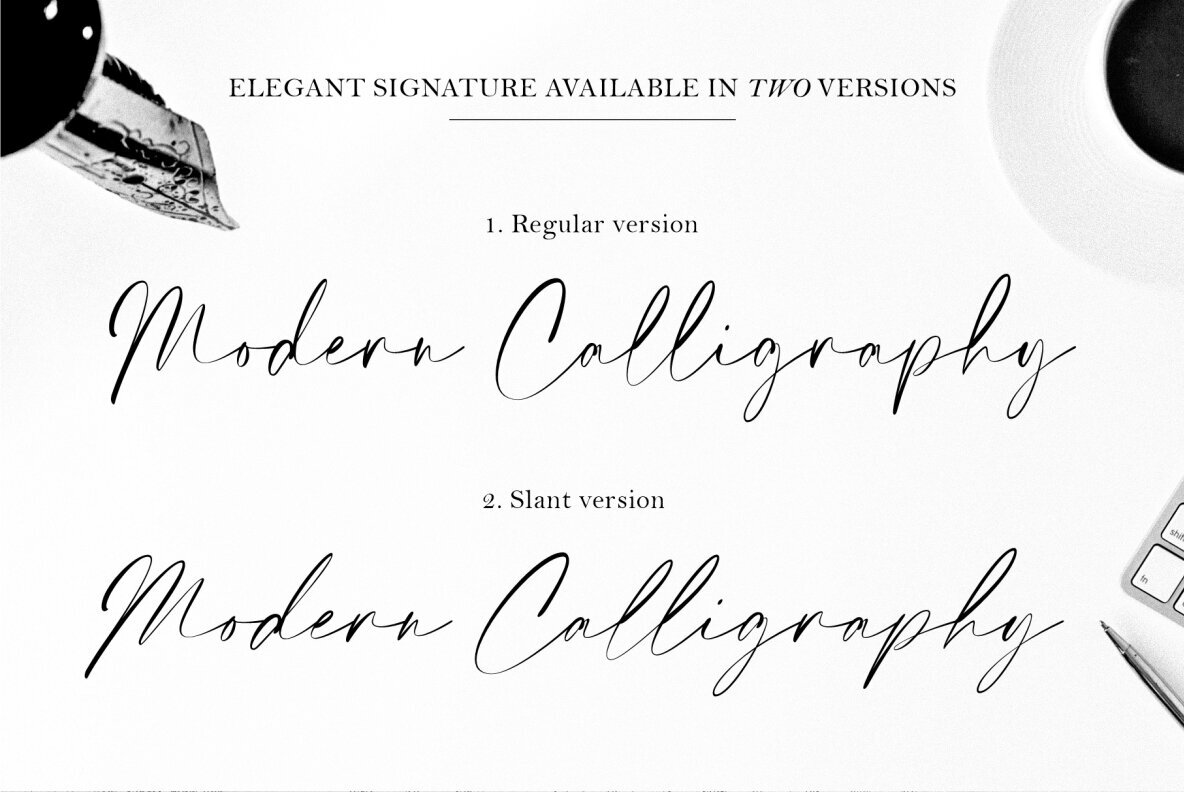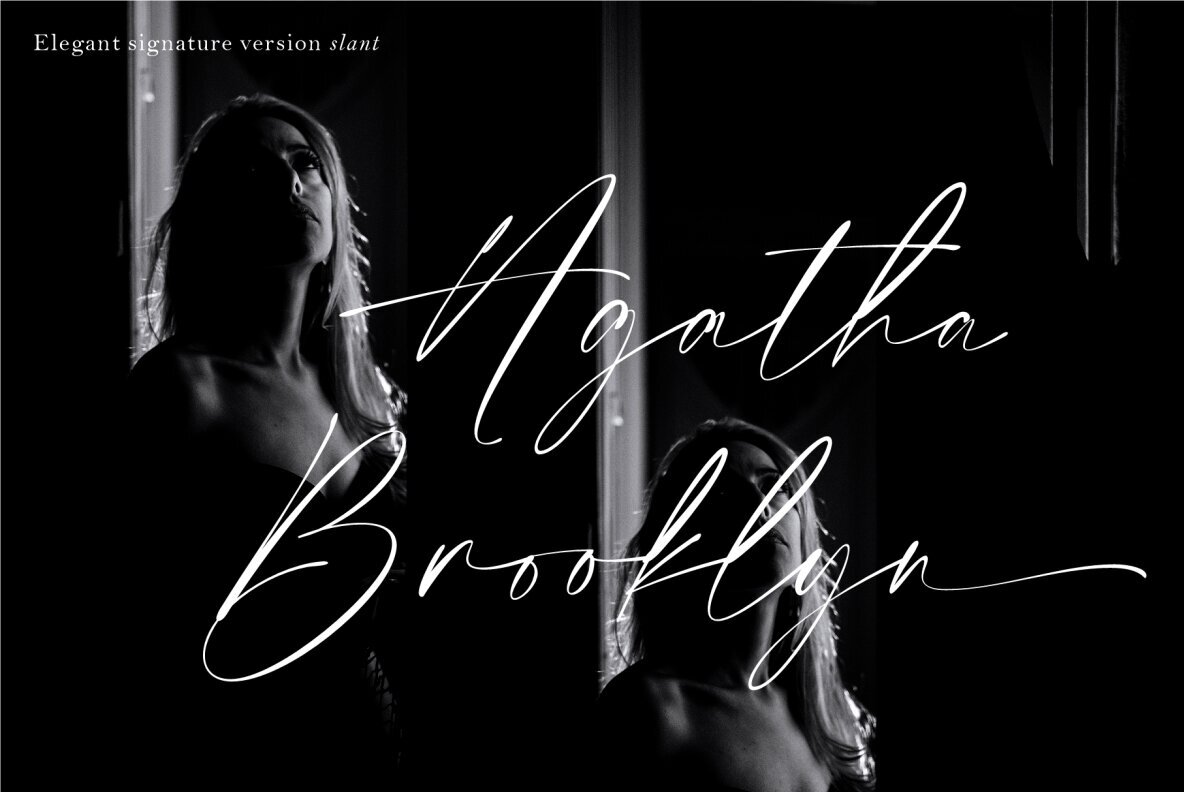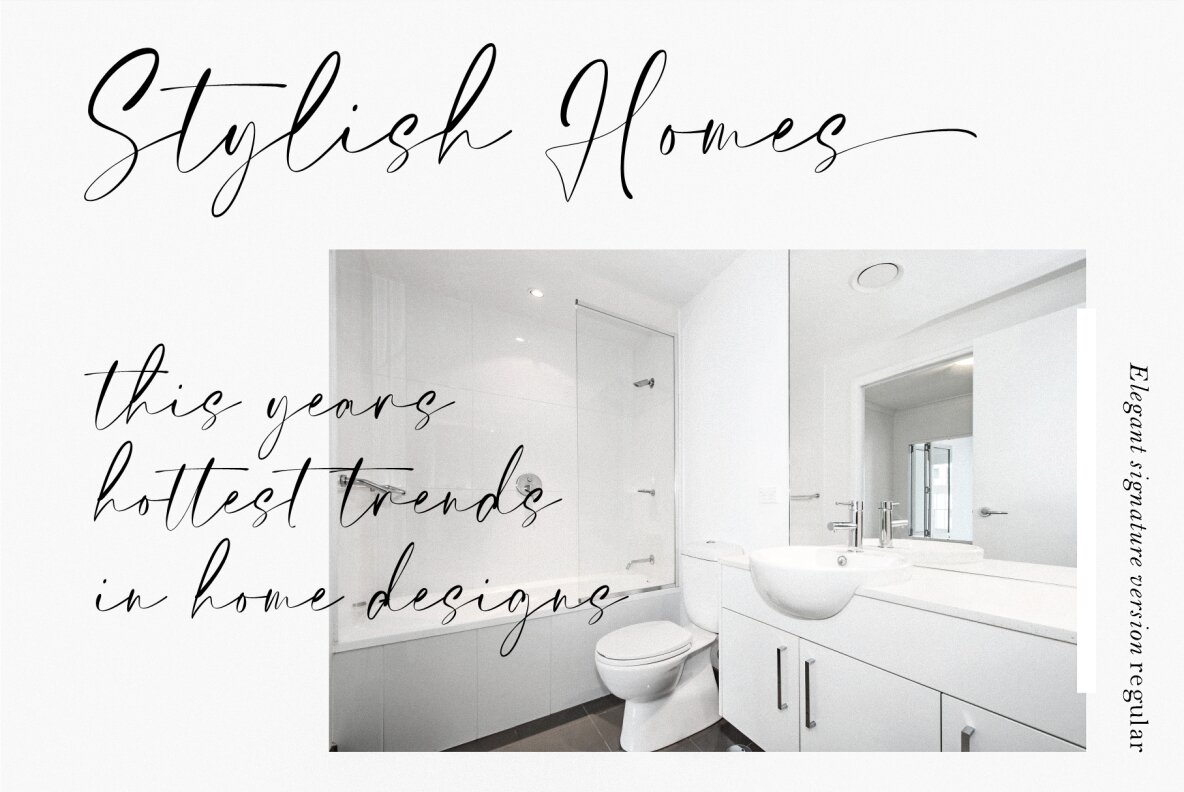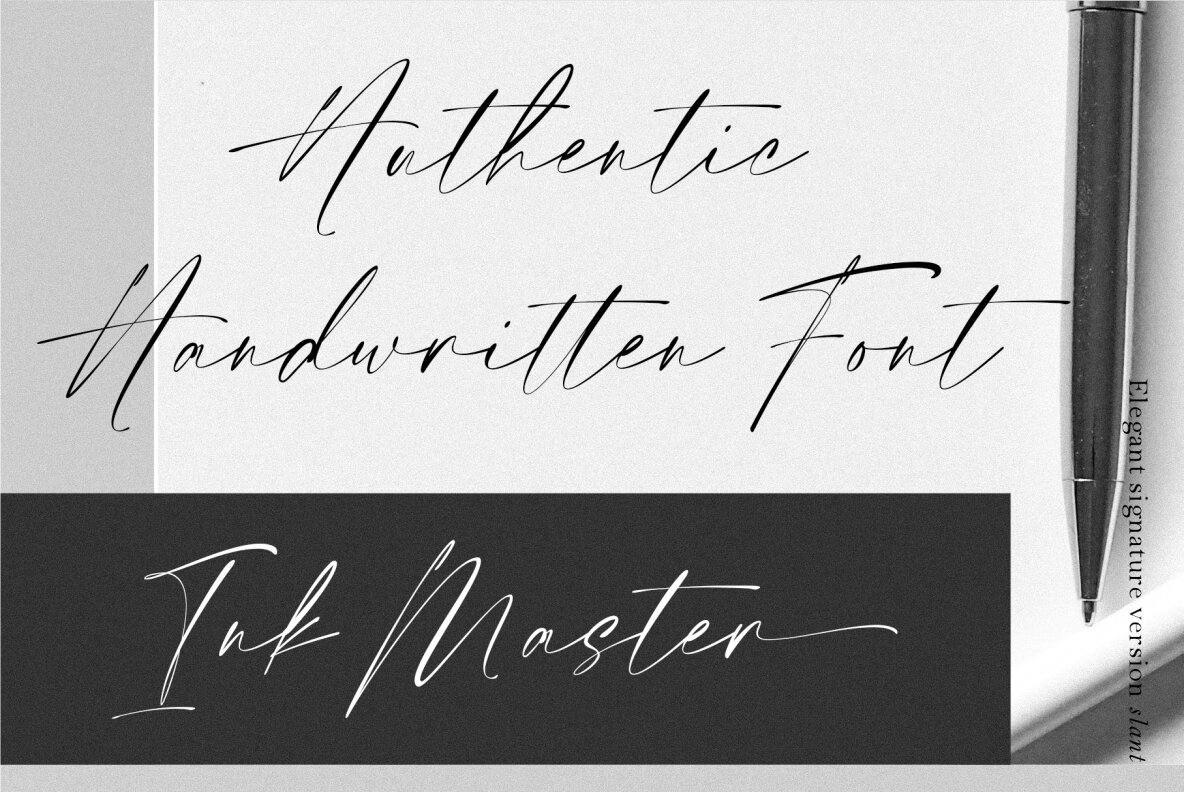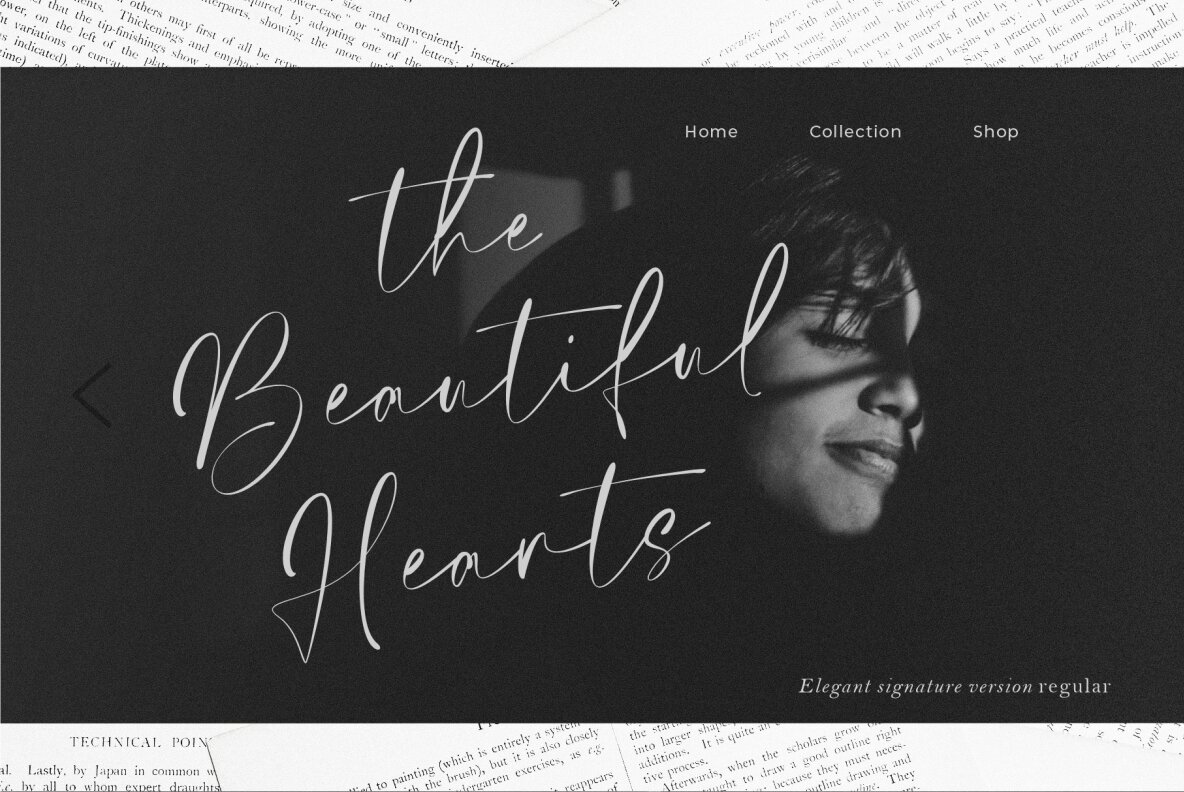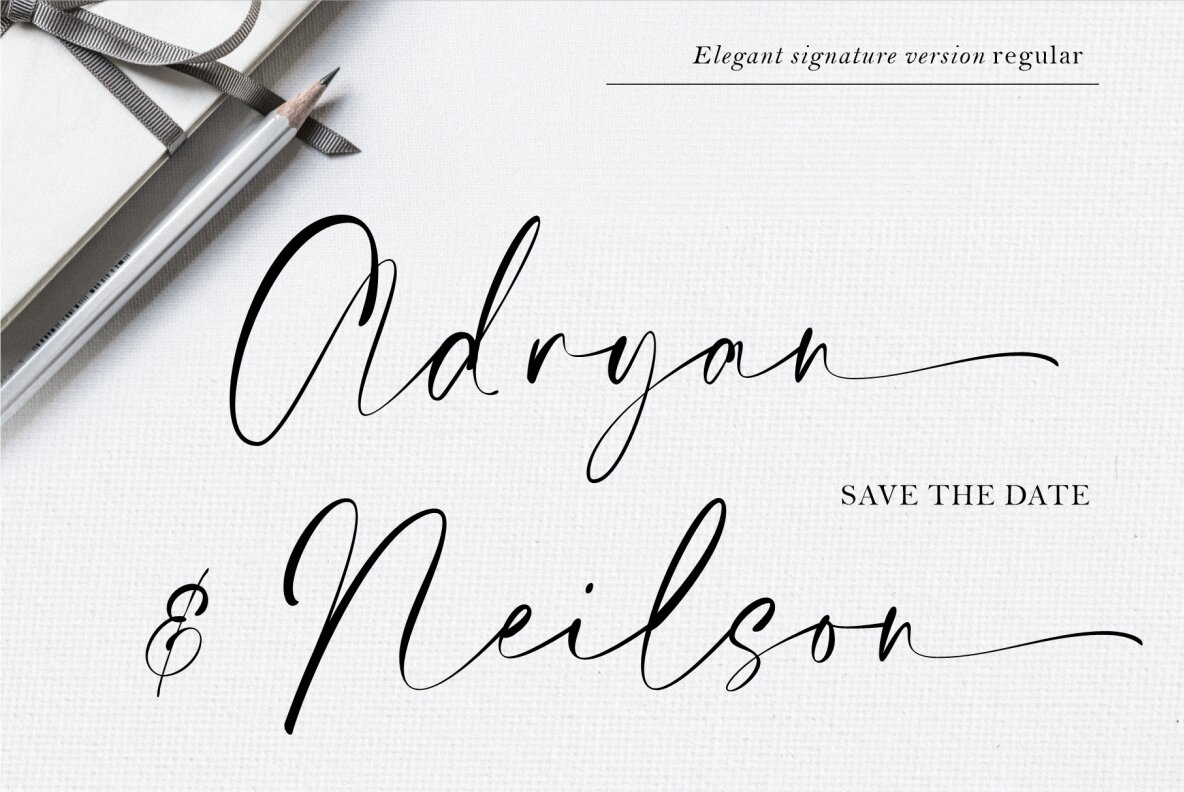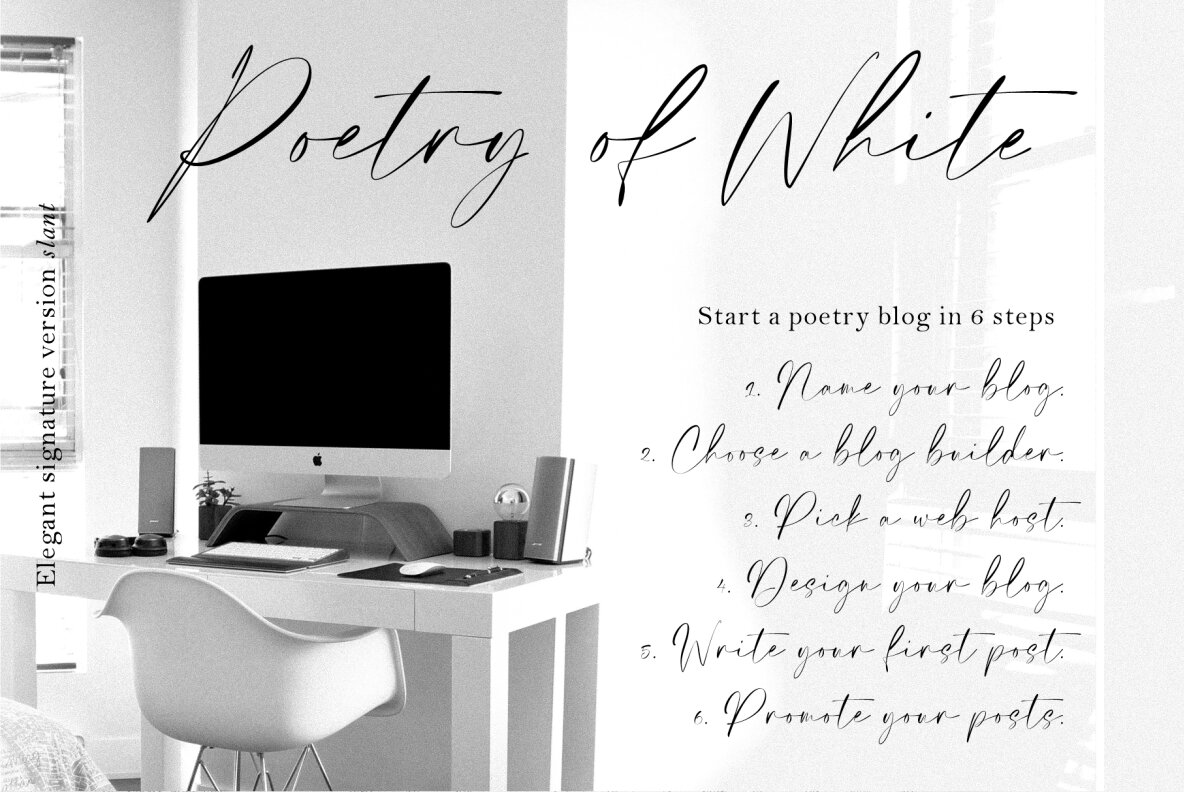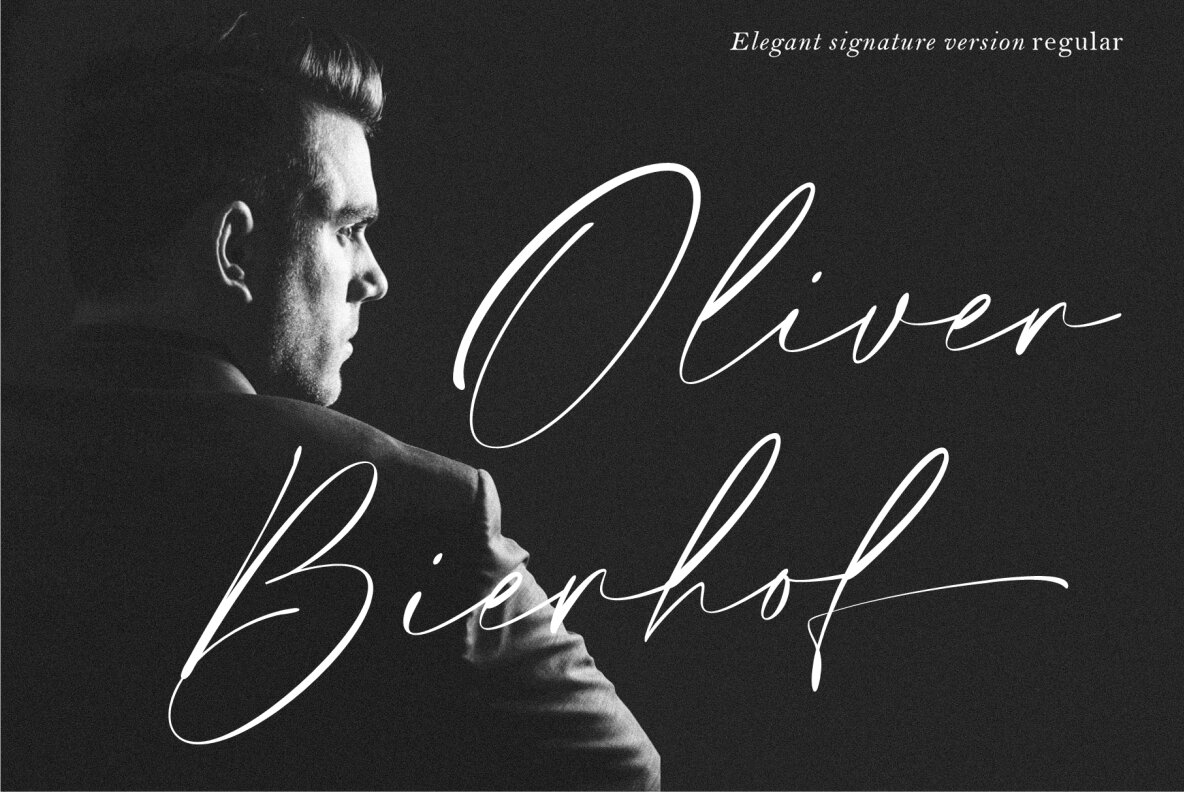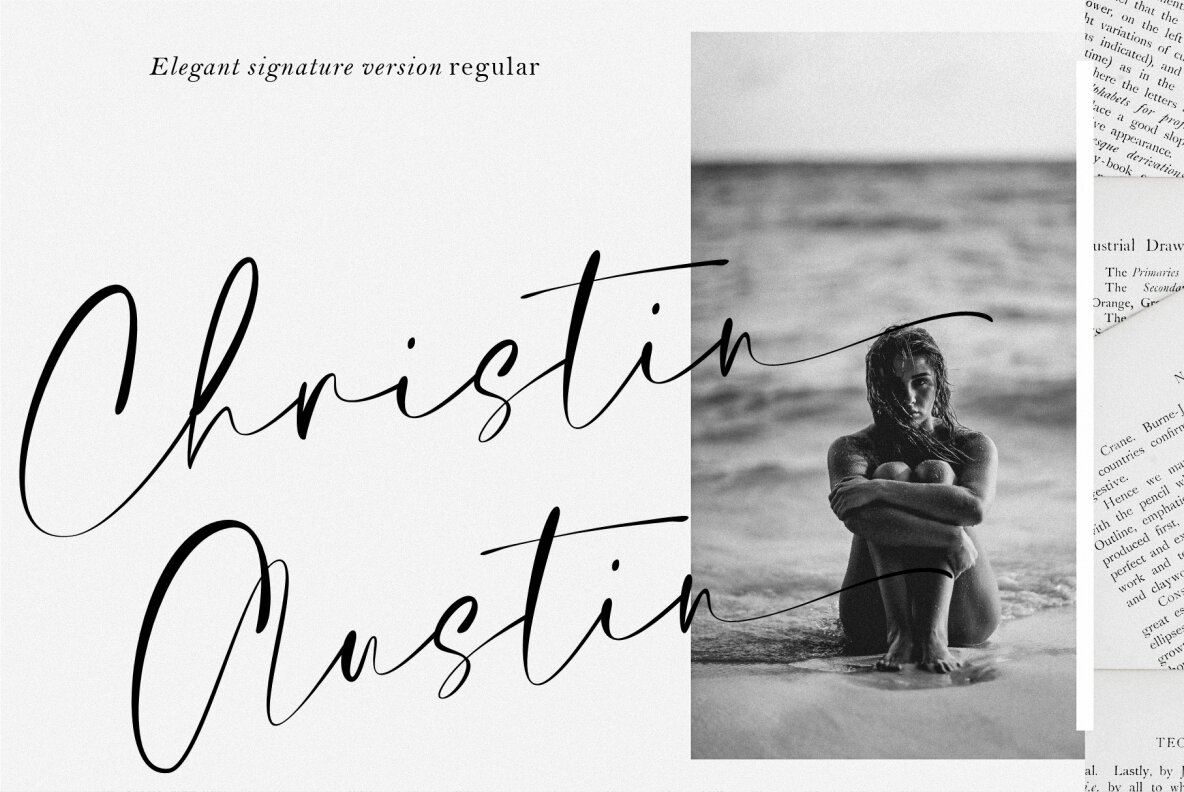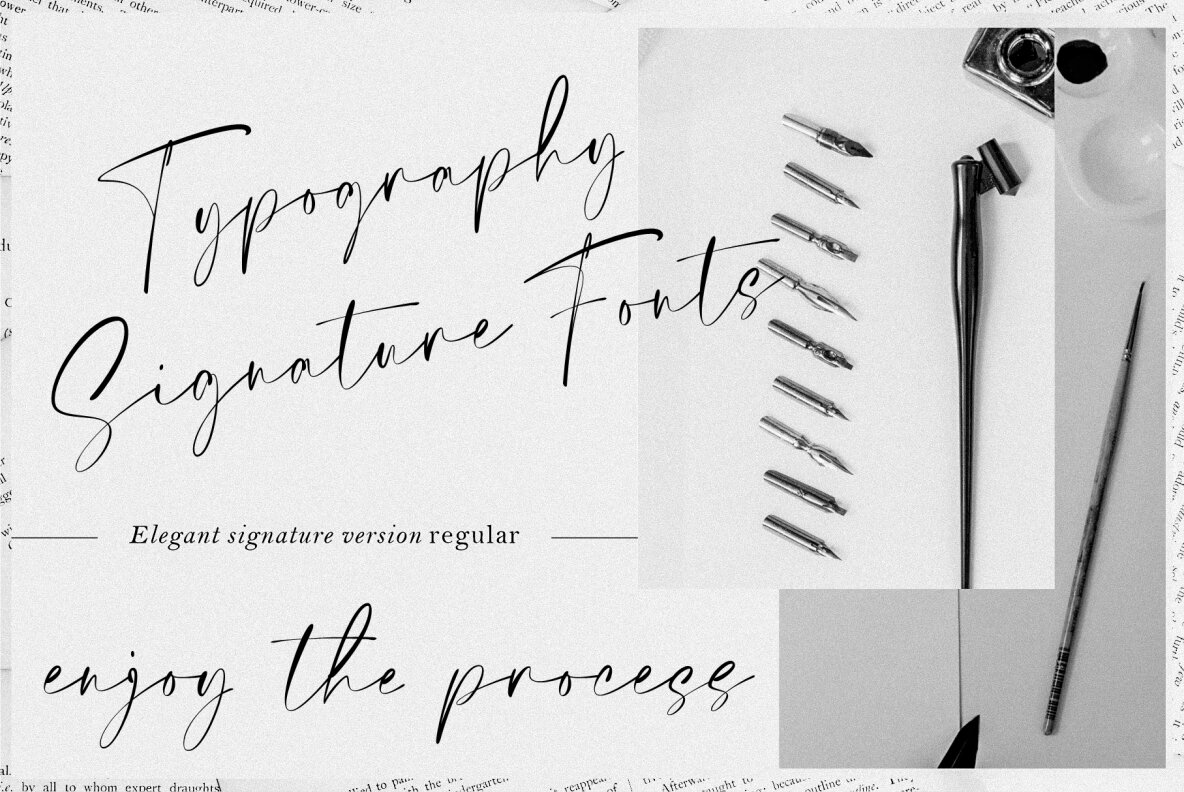
Elegant Signature Font
Elegant Signature presents itself as a sophisticated and chic typeface, blending style with readability. Developed with precision, this handwriting-inspired font boasts clean edges and impeccable craftsmanship, making it an ideal choice for projects that demand a unique flair. Whether enhancing your logo design or adding charm to print media, this font delivers a touch of genuine elegance.Elegant Signature: A Stylish Handwriting Font for Creative Designs